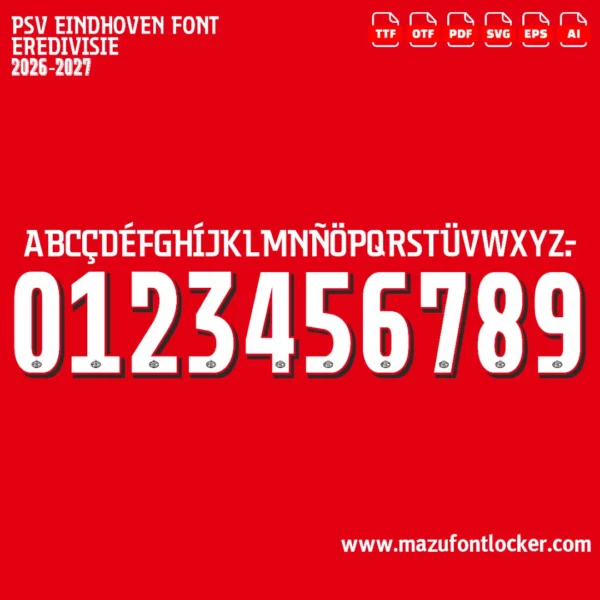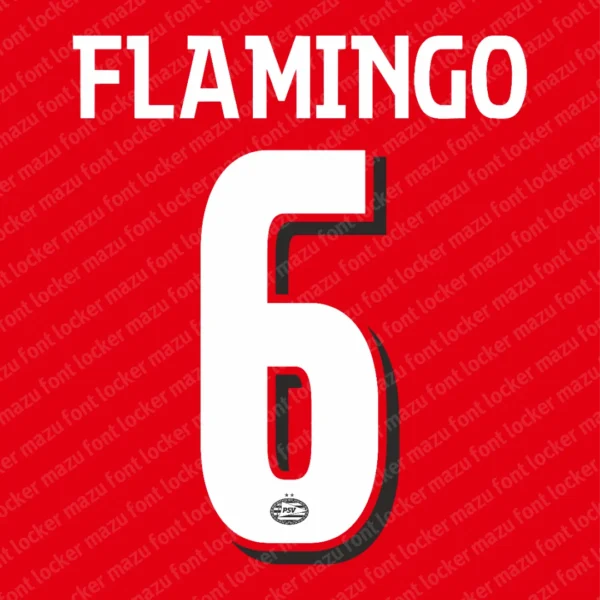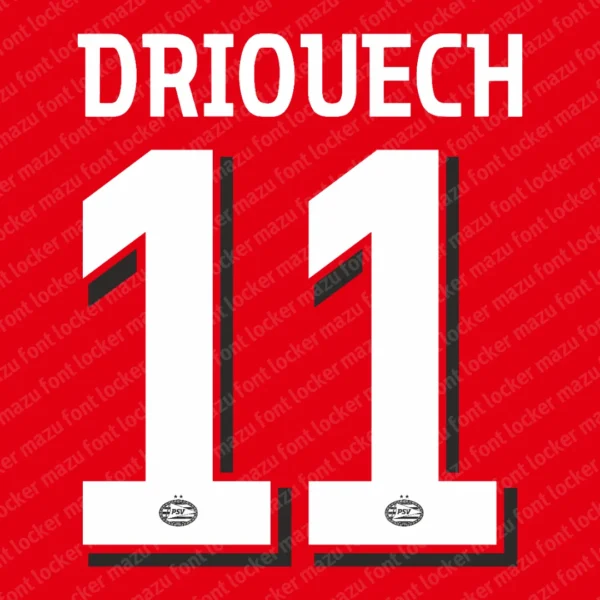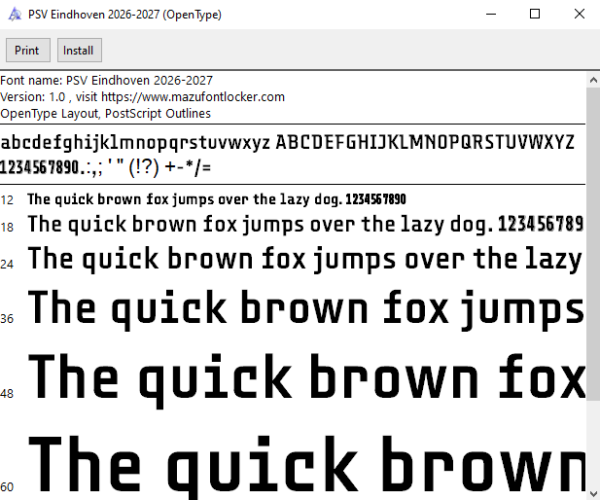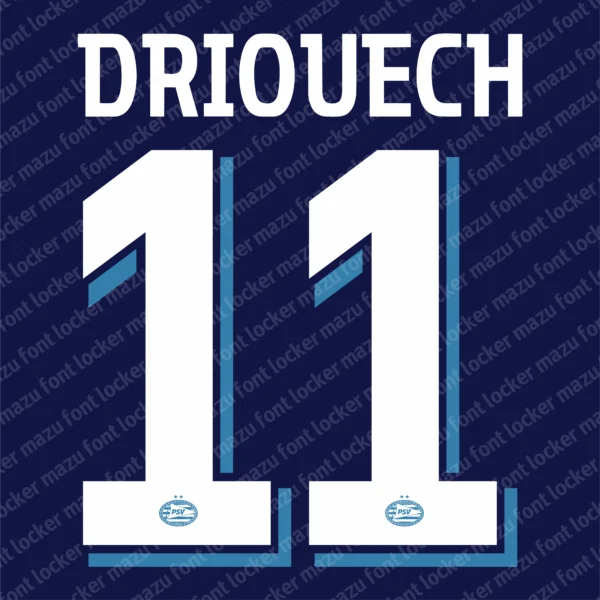
PSV Eindhoven 2026-2027 Font Vector – Stunning Boeren Football Heritage Masterpiece
This font captures the commanding, razor-sharp, thunderous, and precision-crafted lettering that perfectly embodies PSV Eindhoven’s proud club identity, rich Dutch football heritage, legendary red-and-white tradition, and unstoppable winning mentality — delivering unmatched authenticity, premium quality, explosive energy, and elite Eredivisie & European football presence for professional jersey mockups, dynamic football graphics, premium sports branding, passionate fan creations, and high-end design projects.
PSV Eindhoven 2026-2027 Font Vector – Stunning Boeren Heritage Typeface
The PSV Eindhoven 2026-2027 Font Vector is a premium typeface that accurately recreates the official match lettering worn by PSV Eindhoven during the 2026-2027 season. This high-quality vector font kit captures the bold, clean, and instantly recognizable typography that perfectly complements the club’s iconic red and white identity.
Why Choose PSV Eindhoven 2026-2027 Font Vector
This font stands out thanks to its precise vector construction and authentic club-inspired styling. Every letter and numeral has been meticulously recreated to match the official shirt lettering used throughout the 2026-2027 Eredivisie and European football campaigns. Whether you’re producing professional kit templates or creating eye-catching football content, the PSV Eindhoven 2026-2027 Font Vector delivers a genuine match-ready appearance inspired by the proud identity of the Eindhoven giants.
The lettering featured in the PSV Eindhoven 2026-2027 Font Vector combines clean geometric lines with powerful modern proportions. The result is a premium and highly readable typeface that reflects PSV Eindhoven’s winning mentality, attacking football, precision, and proud Boeren heritage.
- Complete uppercase A–Z alphabet and numbers 0–9 in authentic PSV Eindhoven 2026-2027 style
The PSV Eindhoven 2026-2027 Font Vector is an independently designed typeface package inspired by the official shirt lettering associated with the 2026-2027 season. It has been carefully recreated for football enthusiasts, graphic designers, collectors, and creators producing custom jersey concepts, football artwork, and fan-made projects.